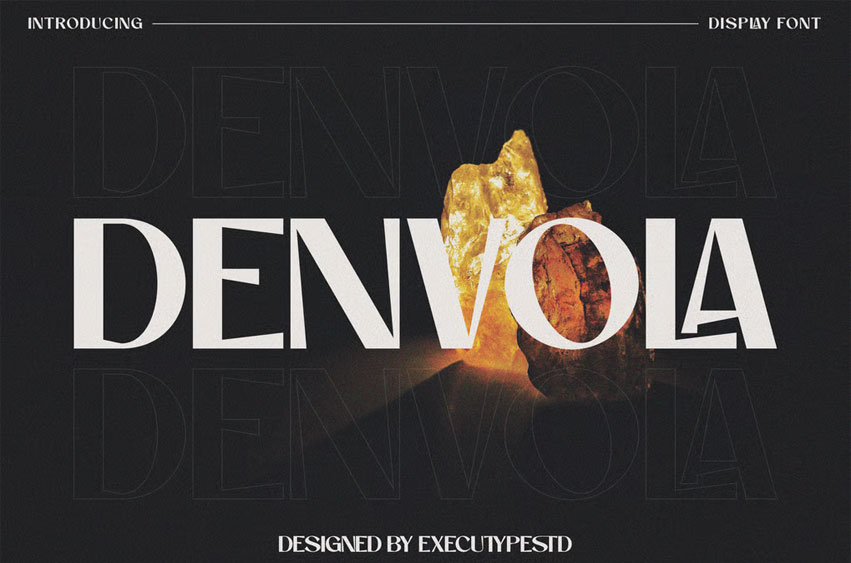
Denvola Font
Denvola Font: Display a new, fresh & modern serif with a strong style, a dancing baseline! So beautiful on invitations like greeting cards, branding materials, business cards, quotes, posters, and more!
Denvola Display is a part of a strong and modern Bold display. This typeface is both impressive at display sizes and easily readable in text size, while the sharp shapes of the triangular serif and the distinctive letter shapes show their strength in logo design and impressive editorial use.